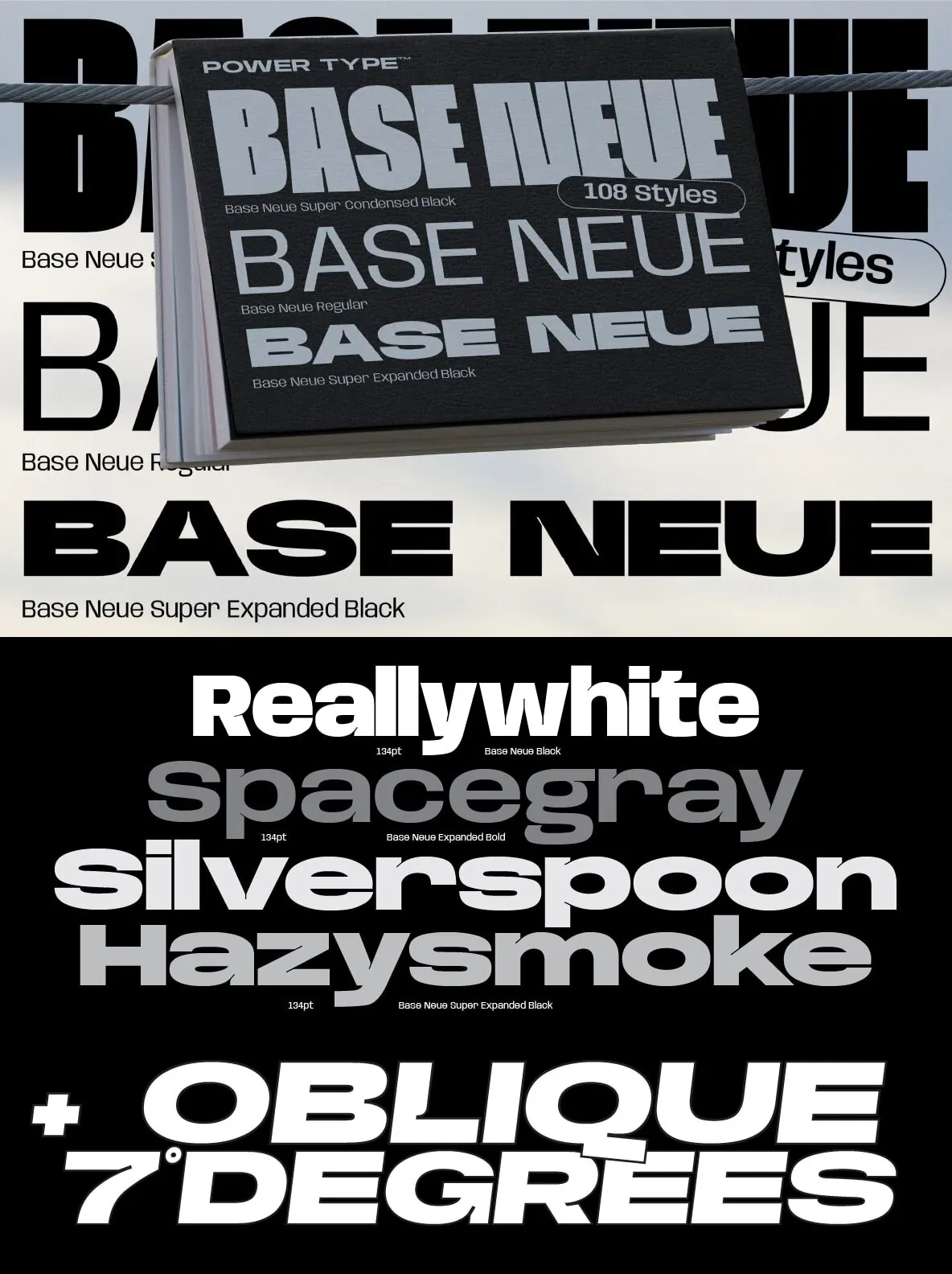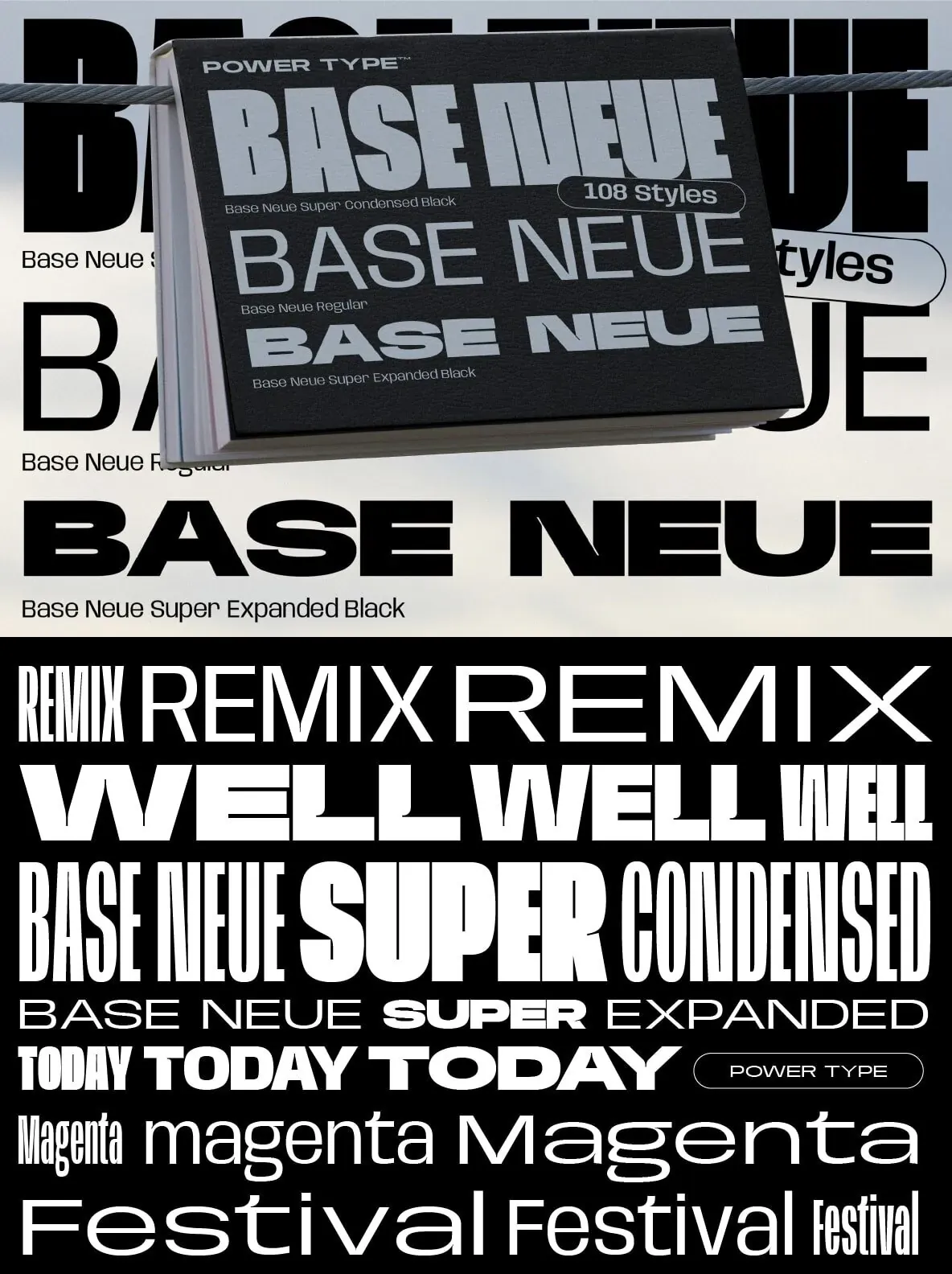
Base Neue — Controlled range, crisp results
A contemporary sans serif built for reliable use across digital and print. Subtle ink traps help maintain clarity at varying sizes, while the full suite of widths and weights—thin to black, super condensed to super expanded—keeps layouts consistent across systems and formats. Use it to hold a tight typographic grid, or to push contrast and scale when the project calls for it.
Designed by Power Type Foundry, the family supports precise control of visual hierarchy, from minimalist interface typography to expansive editorial spreads. Its breadth makes it easy to set bold headlines, balanced subheads, and refined body text with a single, cohesive voice—while keeping flexibility for layout shifts and responsive needs.
108 unique styles supporting a wide array of design uses
Ink trap details for improved rendering at varying sizes
Comprehensive language support—95 languages included
Advanced set of ligatures and alternate letterforms for creative flexibility
Optimized for both narrow and large-format layouts